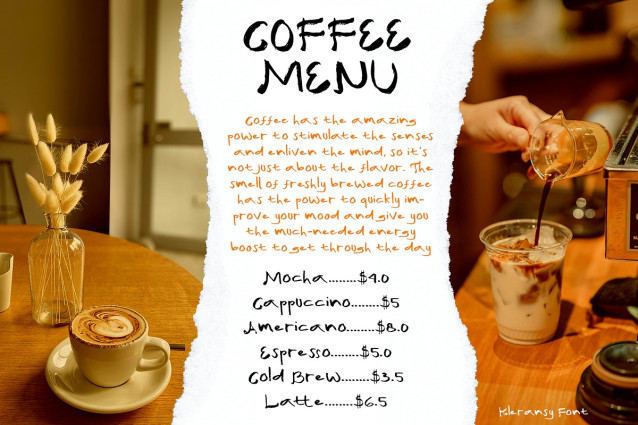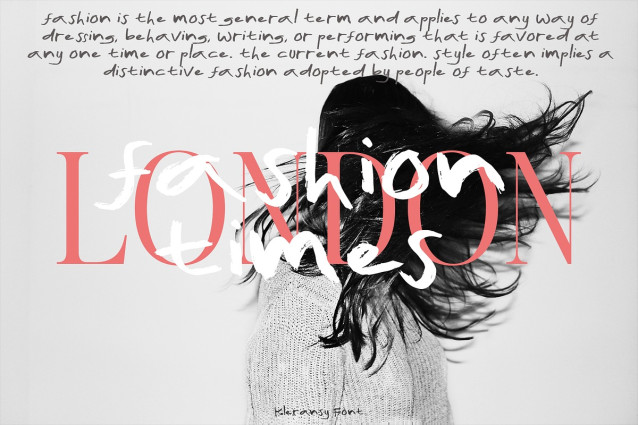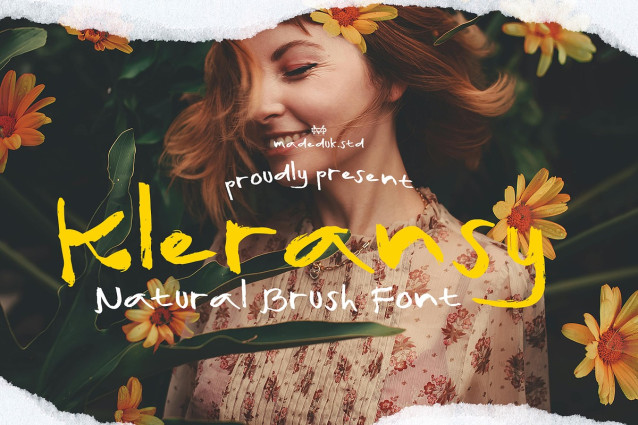
Kleransy Brush Font
Kleransy Brush Font is a natural brush font! Come with much alternative and this font perfect for poster design, book covers, merchandise, fashion campaigns, newsletters, branding, advertising, magazines, greeting cards, album covers, and quote designs and more.